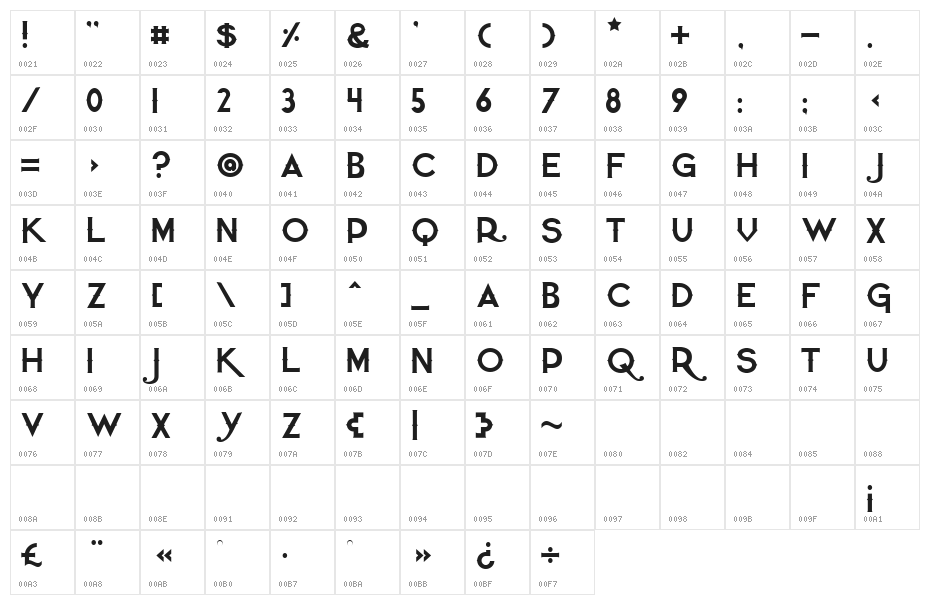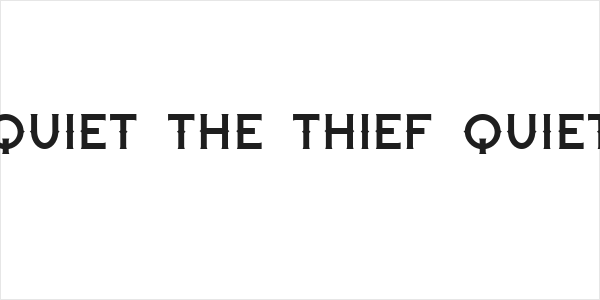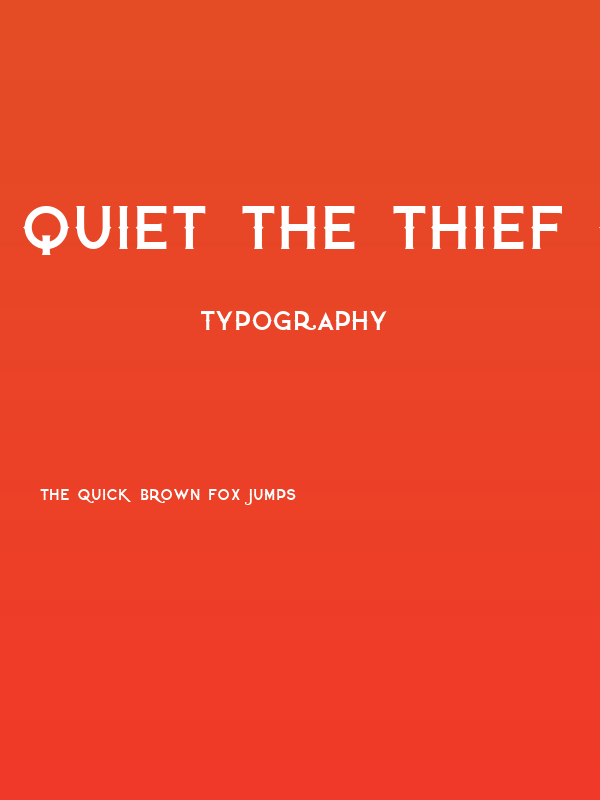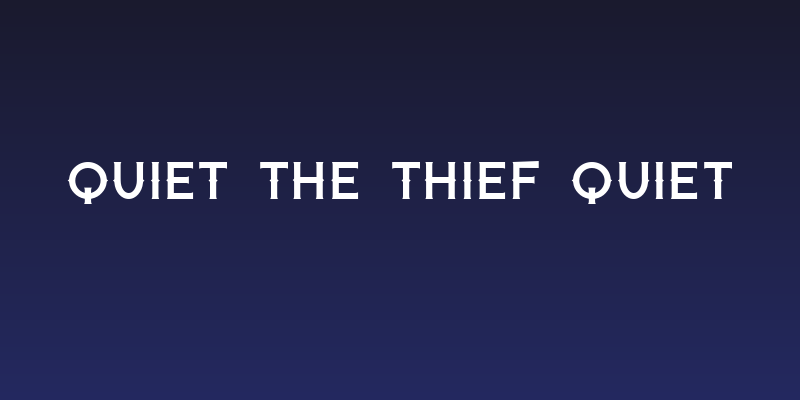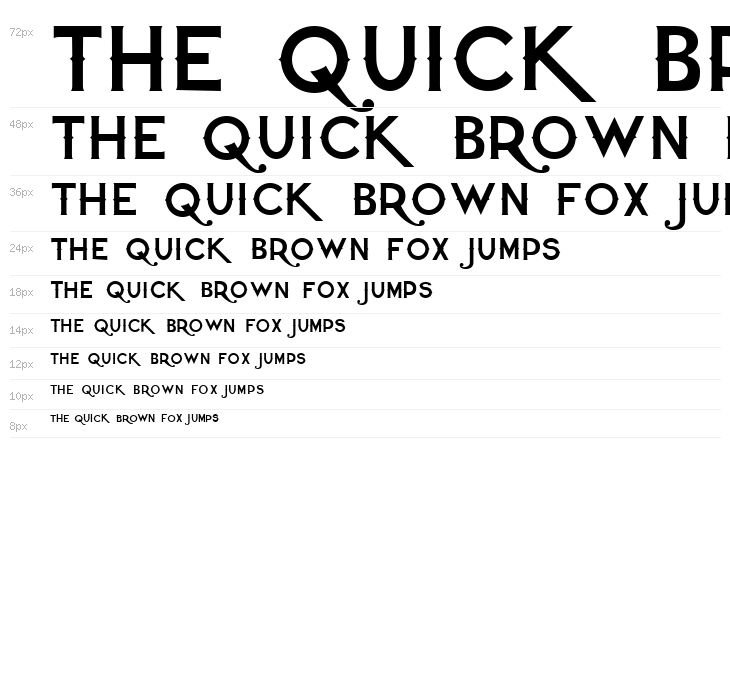
Quiet the Thief Quiet Font
Quiet the Thief Quiet Description
This font features a unique blend of modern and vintage styles, characterized by its bold and striking appearance. The uppercase letters are distinct with sharp angles and subtle curves, giving them a dynamic and slightly aggressive look. The lowercase letters maintain a consistent style, complementing the uppercase with a more rounded and approachable feel. The numbers are bold and clear, ensuring readability while maintaining the font's overall aesthetic. Special characters are designed with attention to detail, matching the boldness and style of the alphanumeric characters. This font is perfect for making a statement, with its high contrast and decorative elements.
| Overall Style | Modern, Vintage |
| Proposed Projects | This font is perfect for branding projects, poster designs, and any creative work that requires a bold and memorable typeface. It can also be used effectively in headlines and logos to convey a strong and distinctive identity. |